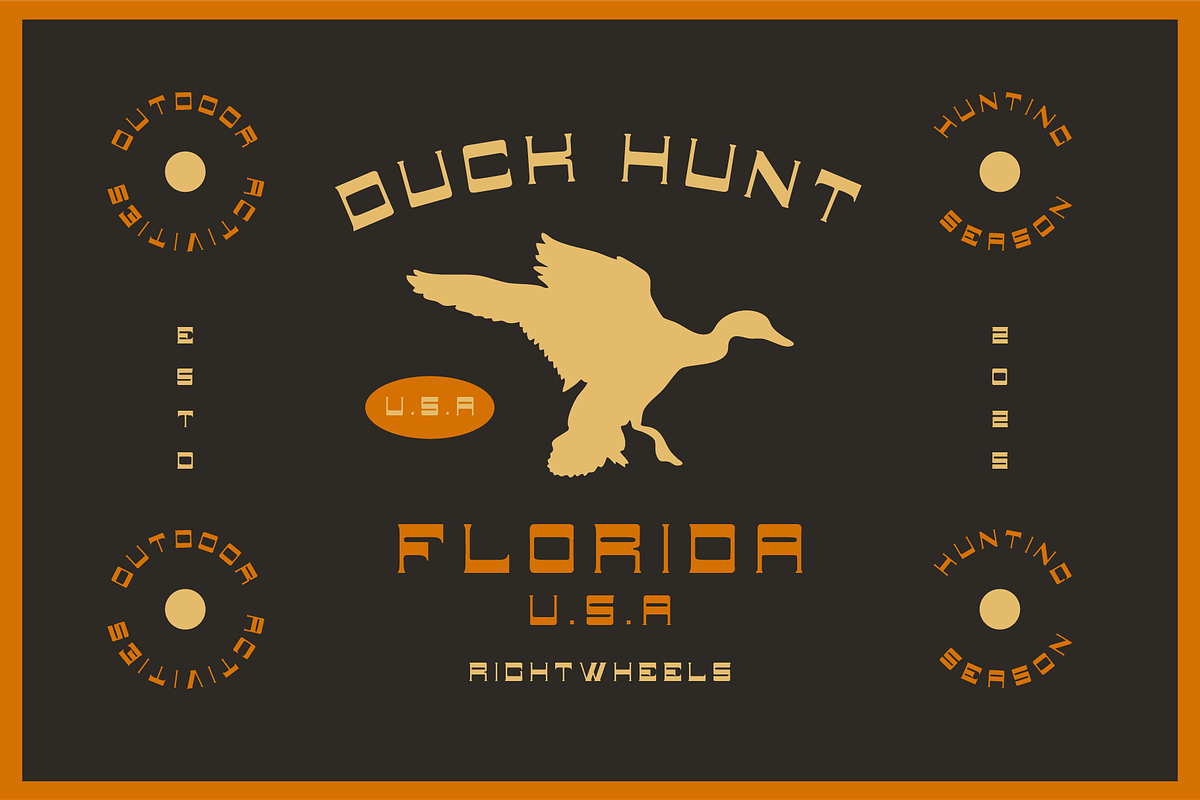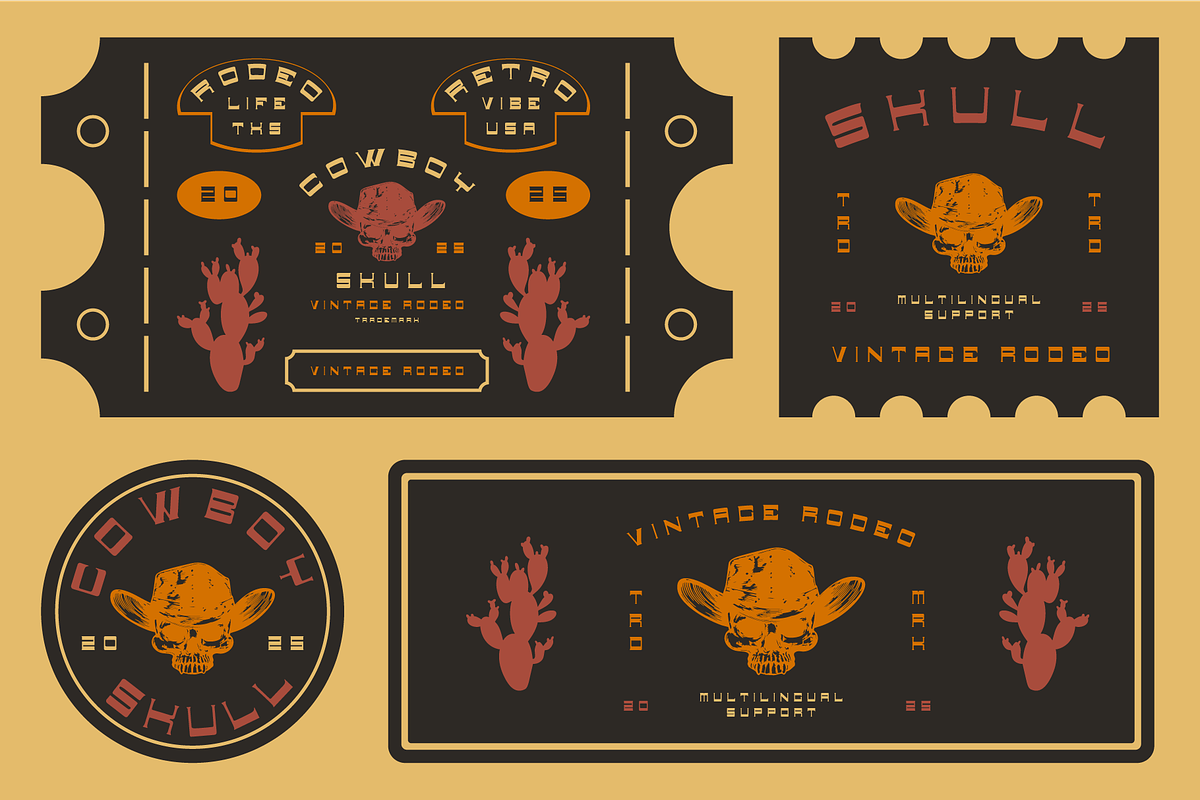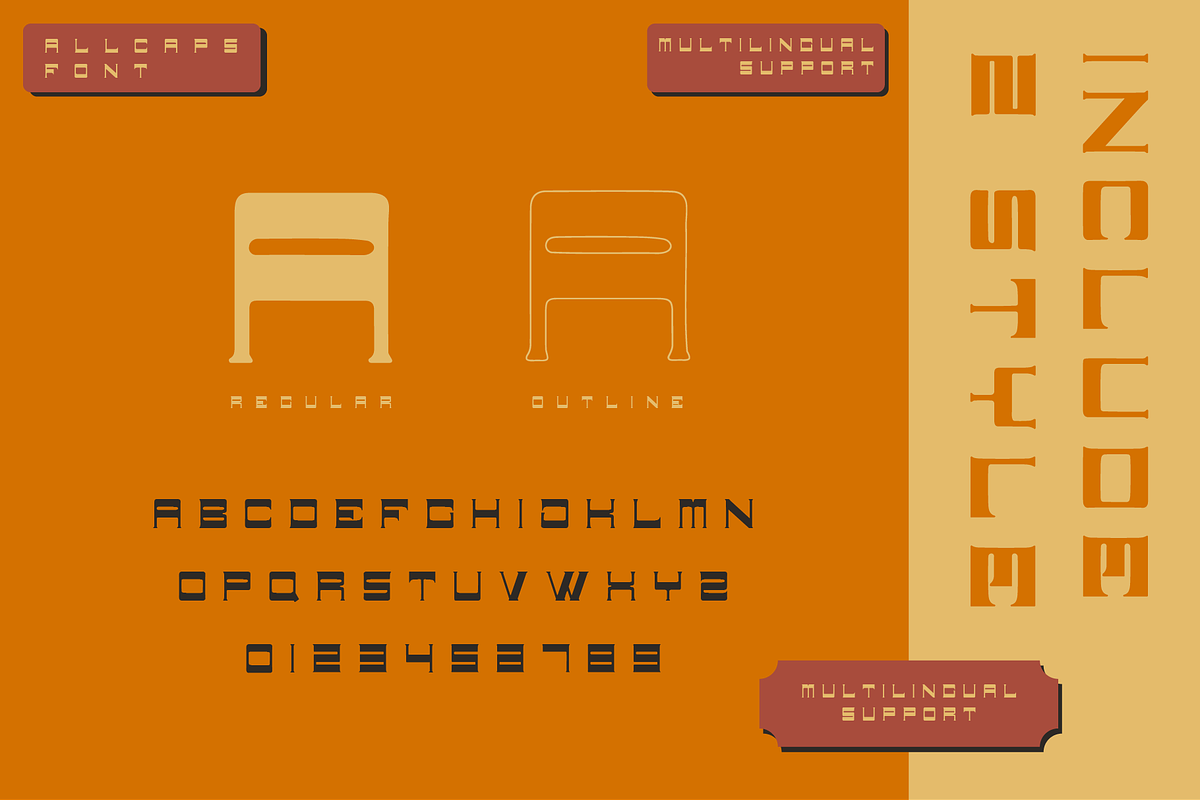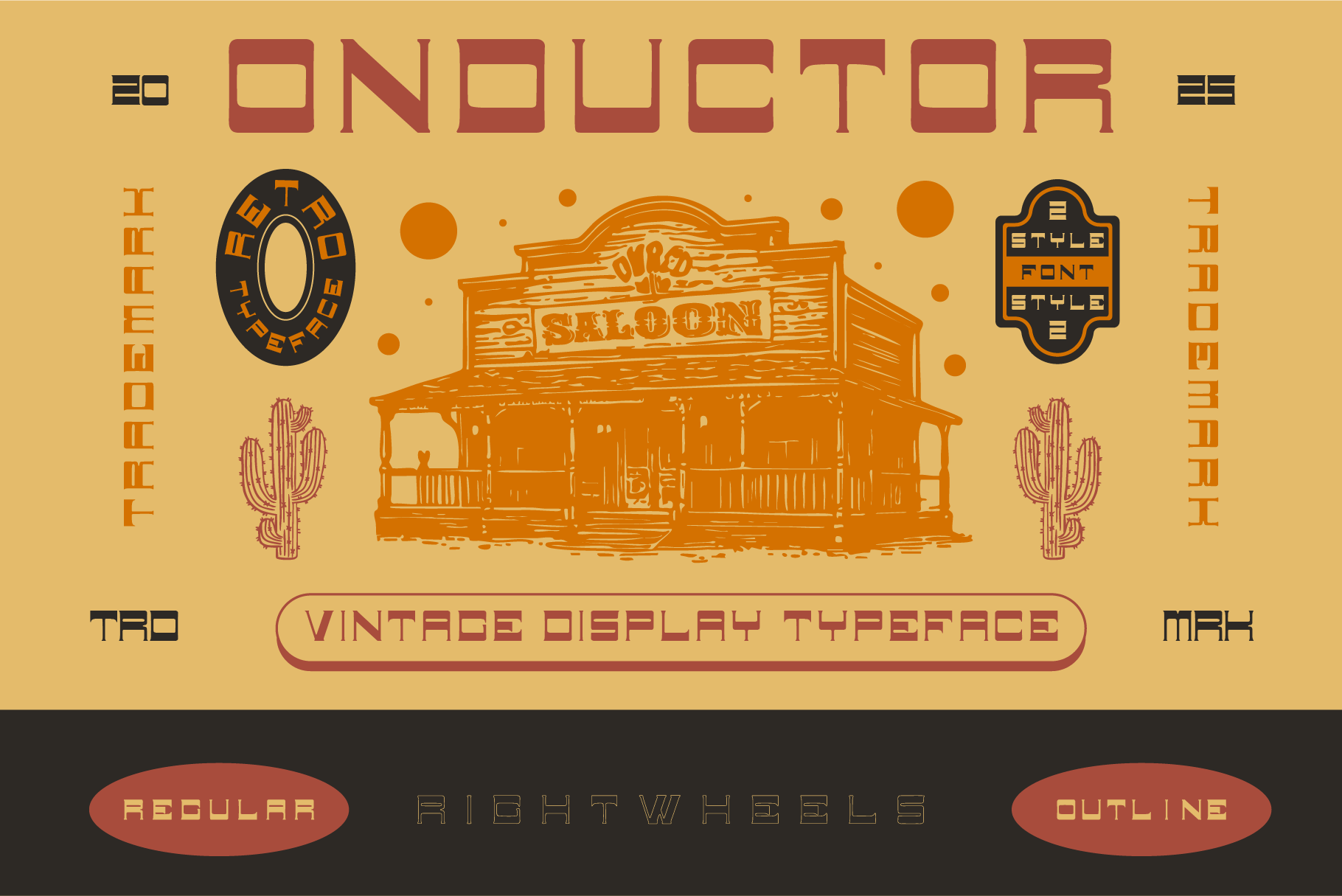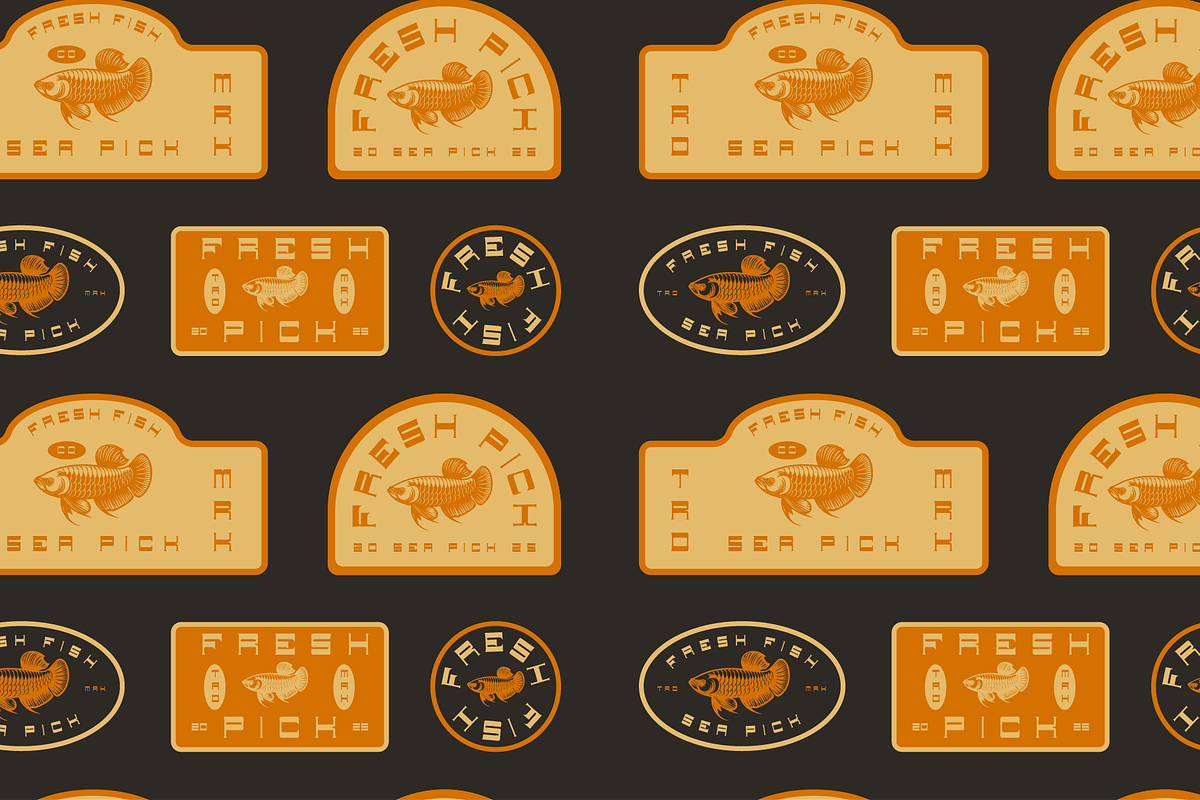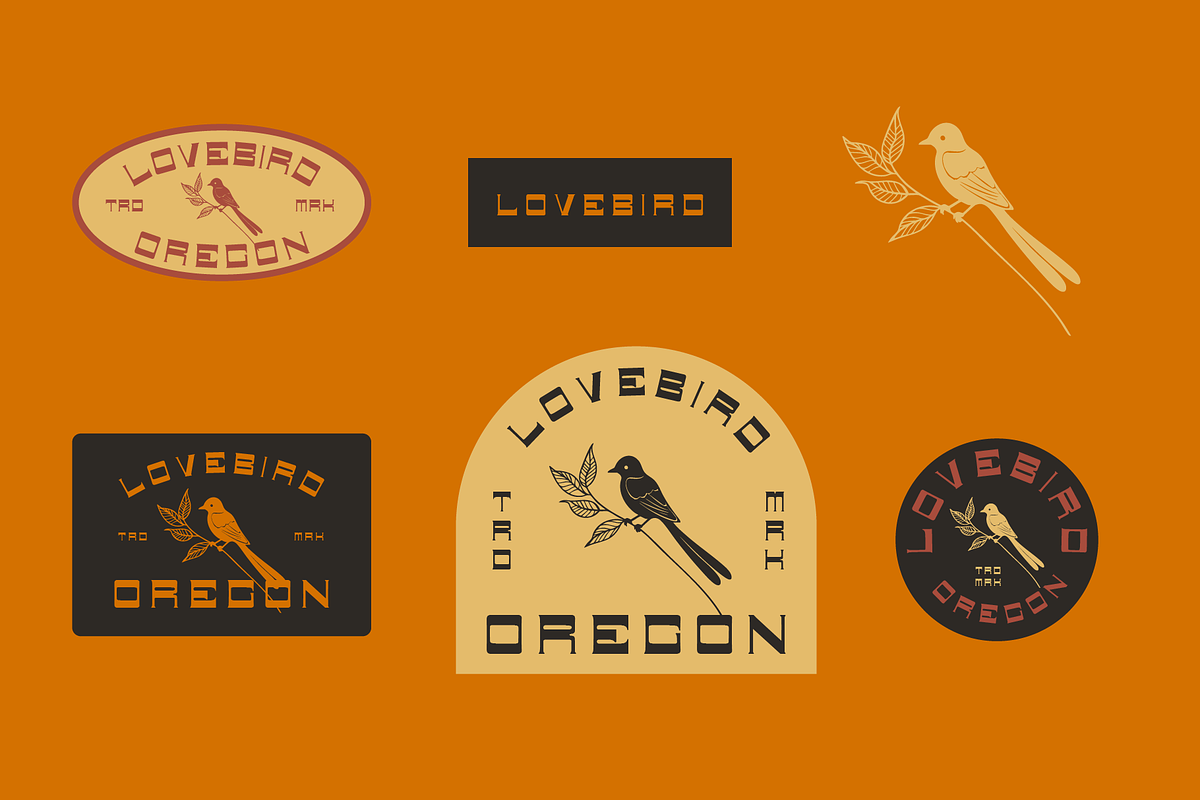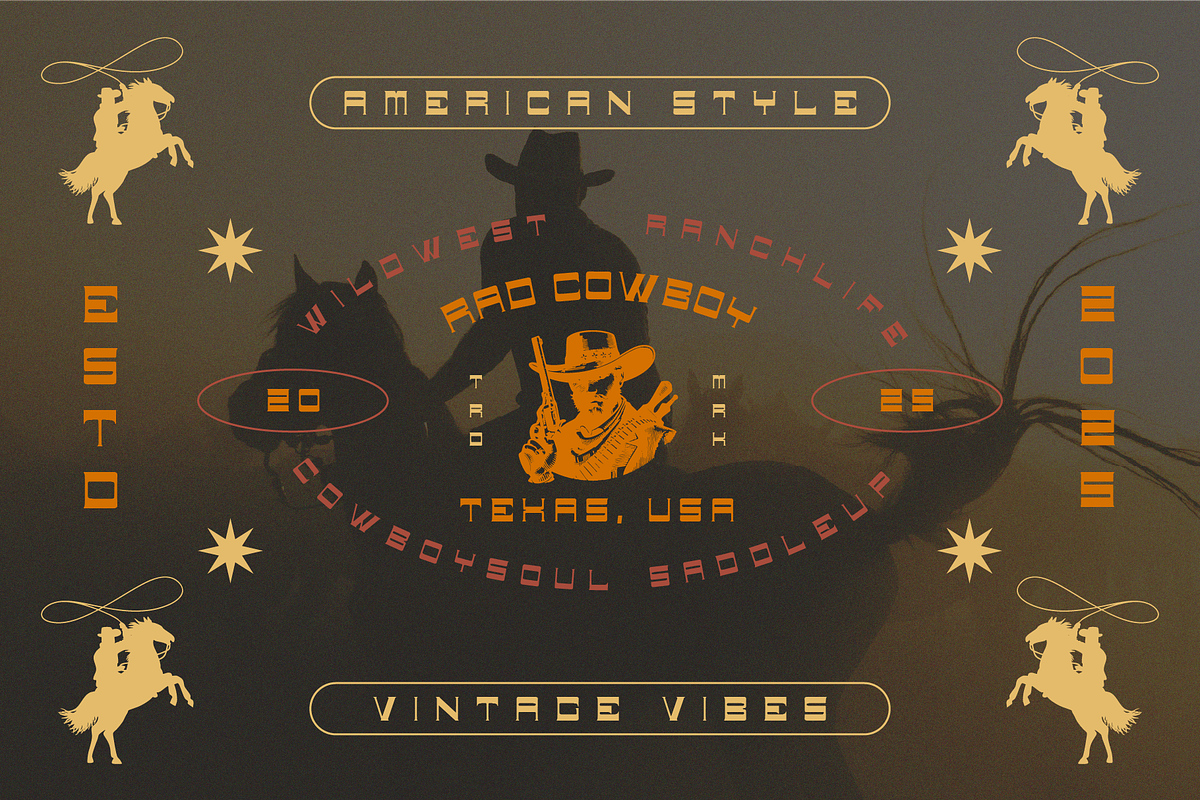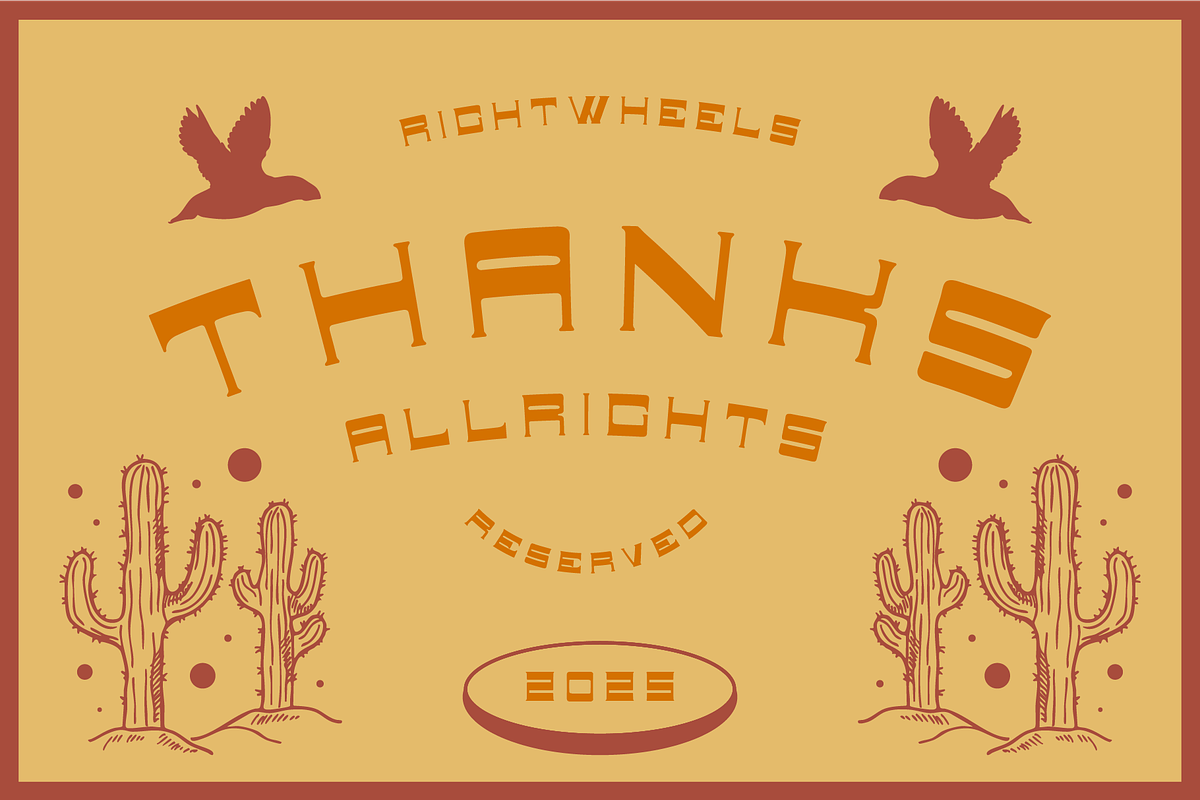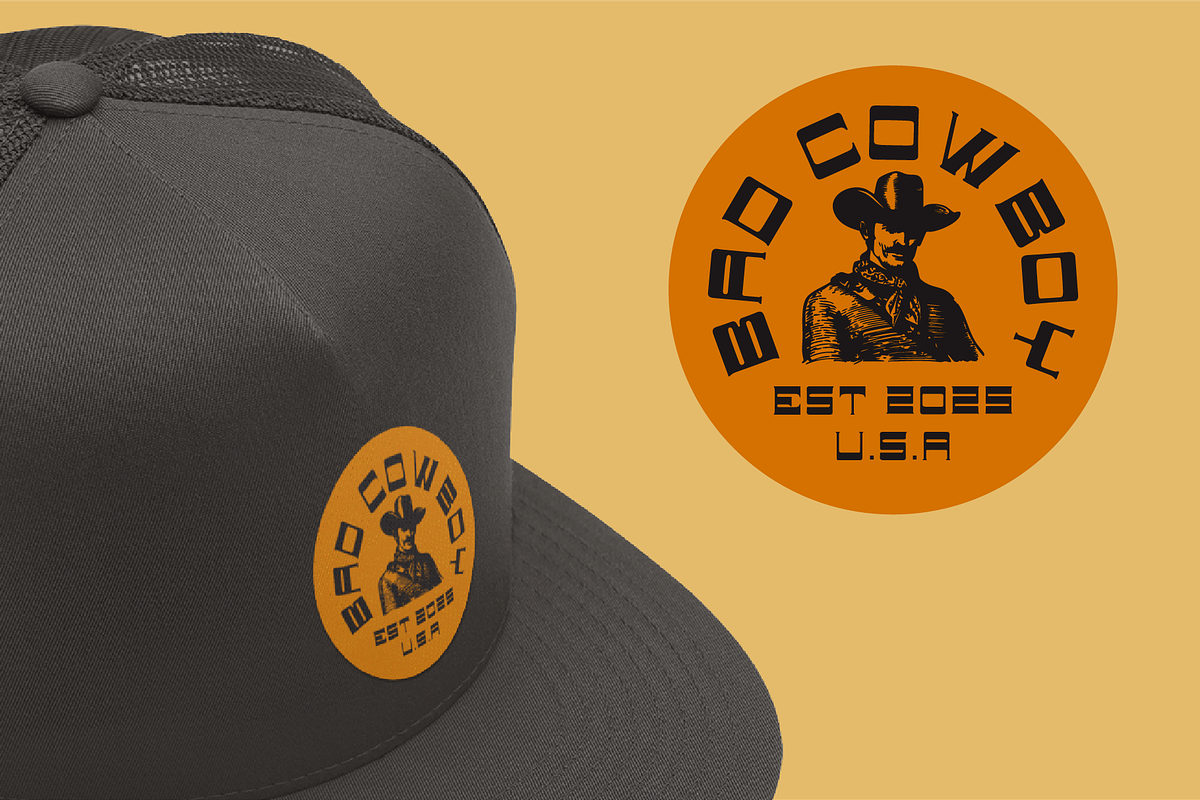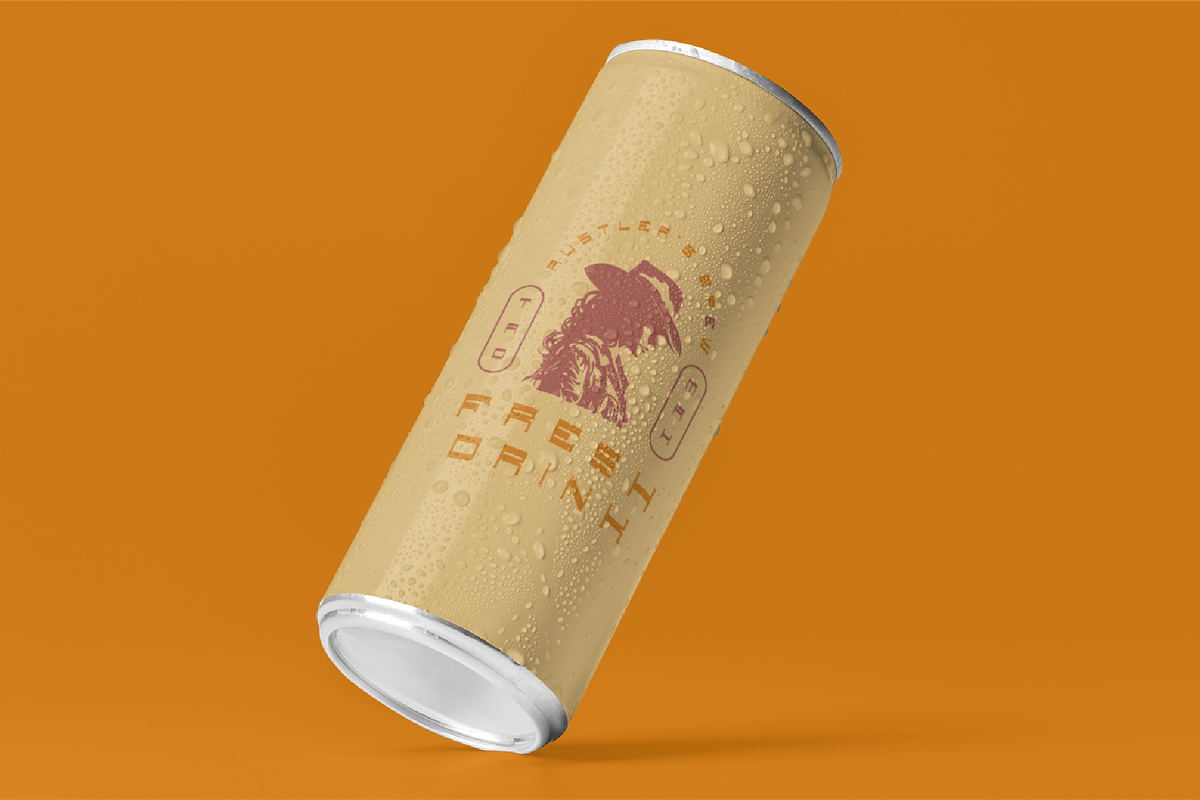
ONDUCTOR - Vintage Display Font
Onductor is a bold, retro-inspired font that blends geometric shapes with a vintage flair, reminiscent of mid-century and 80s design trends. Its thick, angular letterforms and clean lines give it a strong, eye-catching presence, while its curves and occasional futuristic touches evoke a sense of nostalgia for the past. Perfect for grabbing attention, the font combines a sense of fun and energy, making it ideal for branding, posters, or any design needing a bold statement with a nostalgic twist.